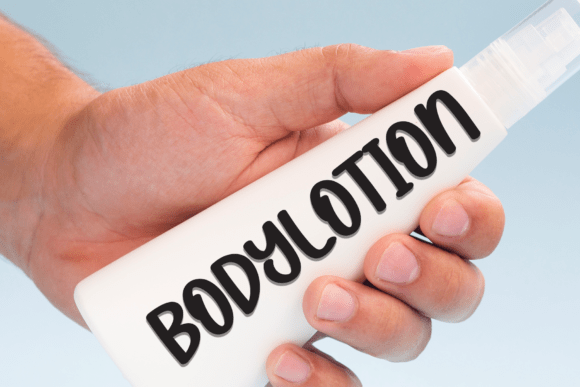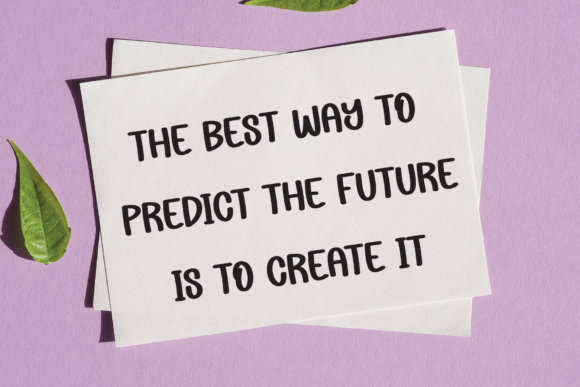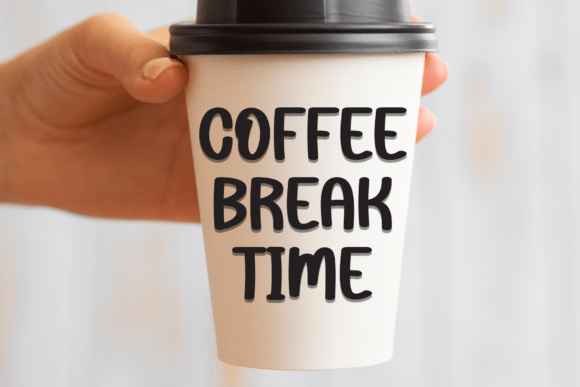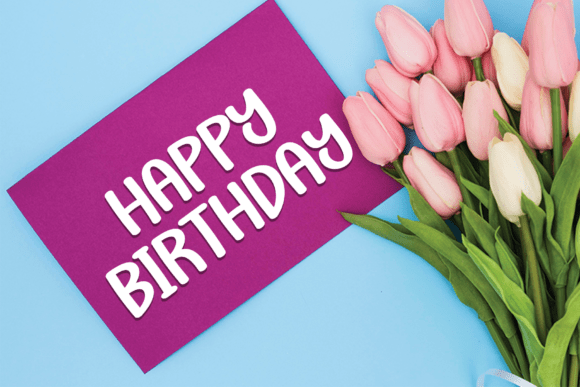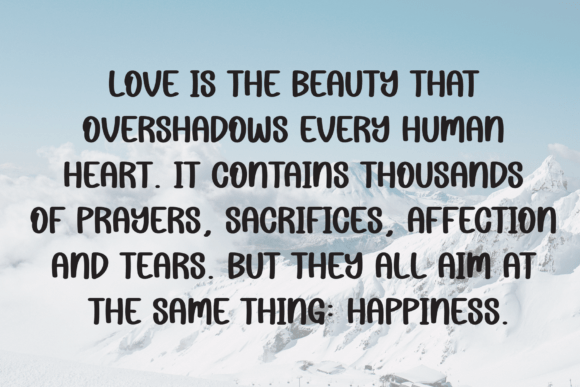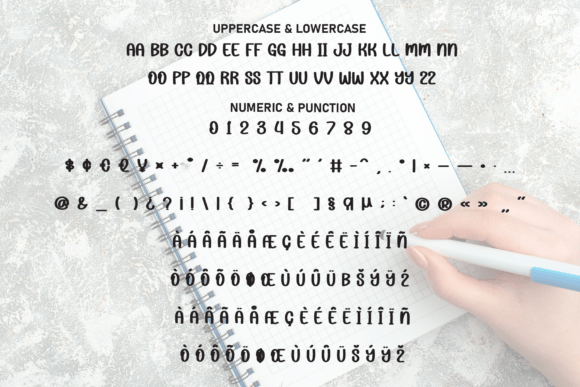
Introduction to Notes Schedule Font
Introducing a charmingly delightful, handwritten display font with an approachable vibe.
Exuding sweetness and friendliness with every line, this font promises to infuse your creations with a playful touch With its cute and fun approach, it serves as the perfect companion for scribing wedding invites, crafting unique cards, or designing anything that calls for a spritz of whimsy.
Key Features of Notes Schedule Font